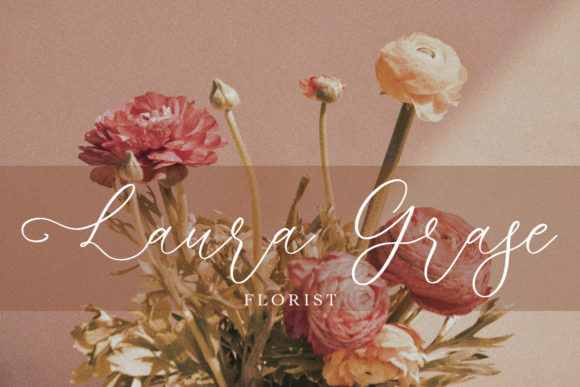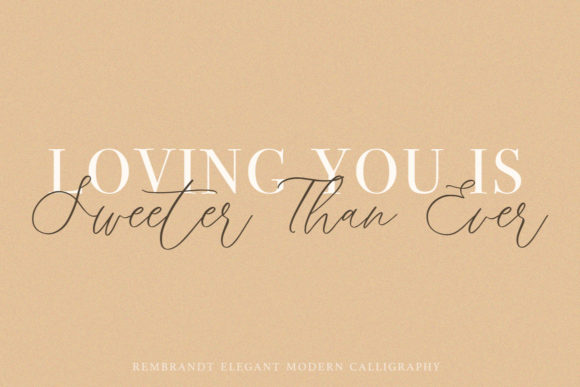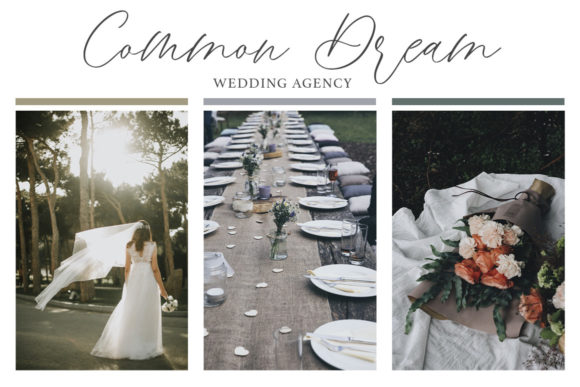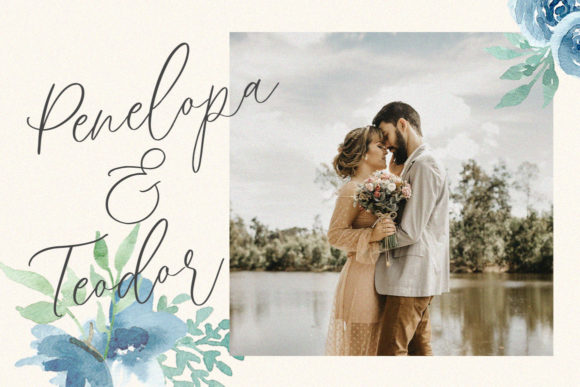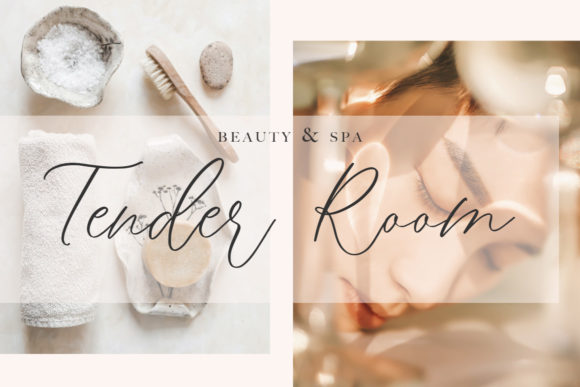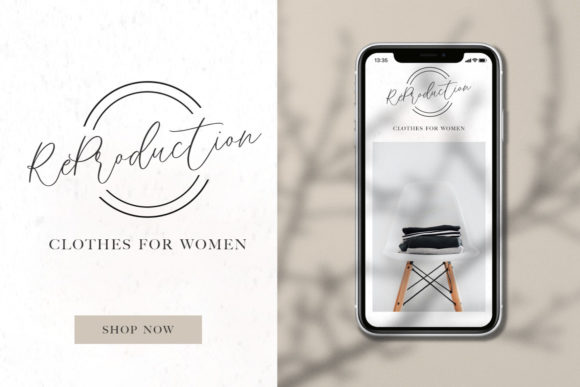
Introduction to Rembrandt Font
But what if I told you that there’s a font out there that’s not only beautiful but also incredibly versatile? A font that will add a luxury spark to any design project and leave a lasting impression on your audience. Say hello to the Rembrandt Font, a stunning light handwritten font that’s about to become your new design best friend.
Key Features of Rembrandt Font
- High-quality vector design for a creative project, ideal for artistic illustrations and designs
- Unique, hand-drawn style with intricate details, perfect for adding a touch of elegance to designs
Honest Review: Rembrandt Font
As a designer, I’m always on the lookout for high-quality design resources to elevate my creative projects. Recently, I stumbled upon the Rembrandt Font, and I’m excited to share my honest review.
- ✨ The Rembrandt Font boasts a unique, elegant aesthetic that’s perfect for adding a touch of sophistication to any design.
- ⚠️ The font may not be ideal for bold, headline text due to its delicate nature.
- ⚠️ Some users may find the font’s elegance to be too subtle for certain design styles.
Overall, I’m impressed with the Rembrandt Font’s potential as a design resource. While it may not be suitable for every project, it’s a great option for designers looking for a high-quality, elegant font for their creative projects.
Tips for Getting the Most Out of Rembrandt Font
Some tips for getting the most out of the Rembrandt Font include:
– Experiment with different font sizes and colors to create a high-quality design.
– Combine the Rembrandt Font with other design resources, such as images and graphics, to create a visually appealing design.
The Rembrandt Font is commonly used for a variety of creative projects, including:
– Wedding invitations and stationery
– Branding and logo design
– Book covers and interior design
– Social media graphics and advertising